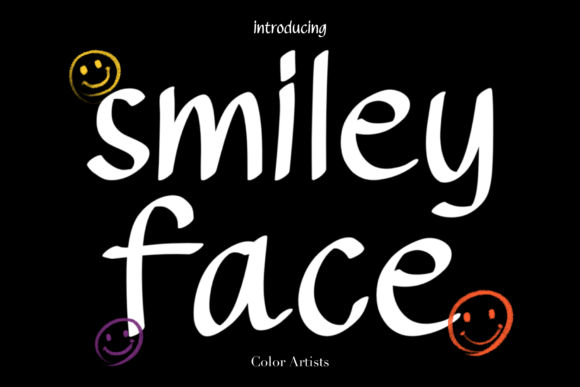
Unleash the infectious charm of our Smiley Face font, a whimsical and effervescent creation from the font foundry, MyFontsShop. This enchanting script font exudes an aura of joy and merriments, transforming your designs into captivating expressions of lighthearted gaiety.
With its rounded contours and playful curves, the Smiley Face font is a visual delight, evoking images of cheerful smiles and sunny dispositions. Picture the jubilance it will bring to your birthday cards, social media posts, and website designs. Each character radiates positive energy, inviting a contagious smile from anyone who lays their eyes upon it.
Step into a world of laughter and lightheartedness as you adorn your designs with the Smiley Face font. Its bubbly letters dance across the page, injecting a dose of sheer delight into every project. Whether you're crafting invitations for a joyous celebration or creating cheerful marketing materials, this font is your secret weapon for spreading happiness.
So, dive into the world of Smiley Face font, where joy reigns supreme, and experience the transformative power of laughter. Let your designs radiate positivity and charm, leaving an unforgettable impression on all who encounter them. Embrace the infectious energy of Smiley Face font and spread happiness wherever your creations go!